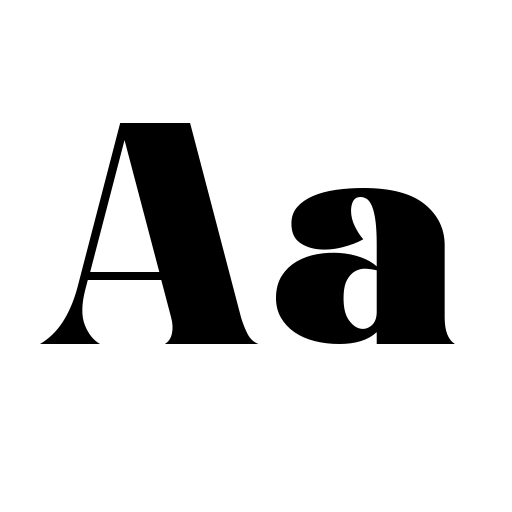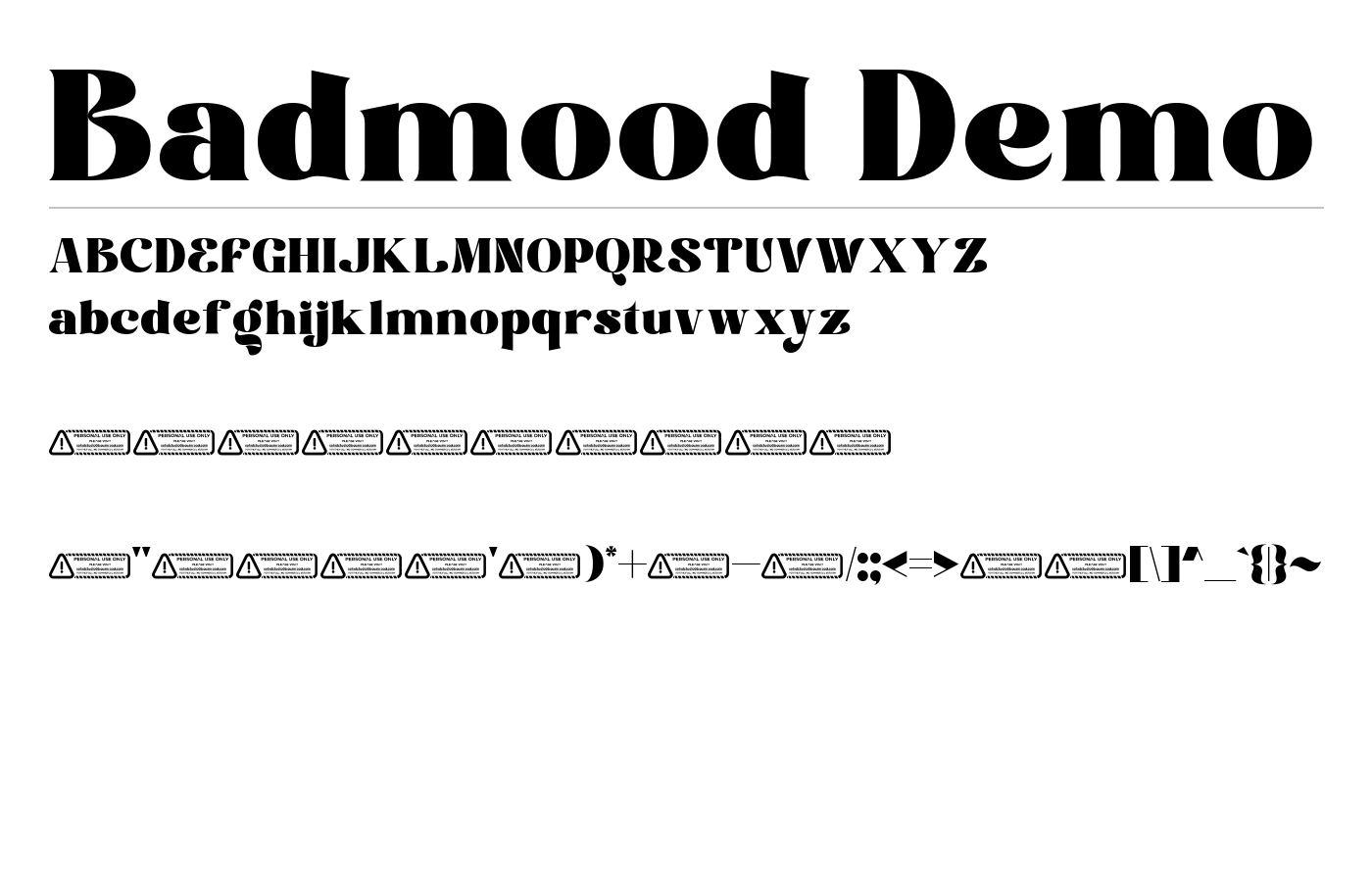
Badmood Demo is a bold serif font with a strong, playful character, featuring high contrast between thick and thin strokes and chunky, exaggerated serifs that give it a dramatic feel. Its unique letterforms and wide proportions make it ideal for eye-catching headlines, logos, or branding that seeks a vintage yet modern statement. This font works best in designs that want to convey boldness and personality while maintaining an elegant, distinctive style.
Badmood Demo Font
About Badmood Demo Font